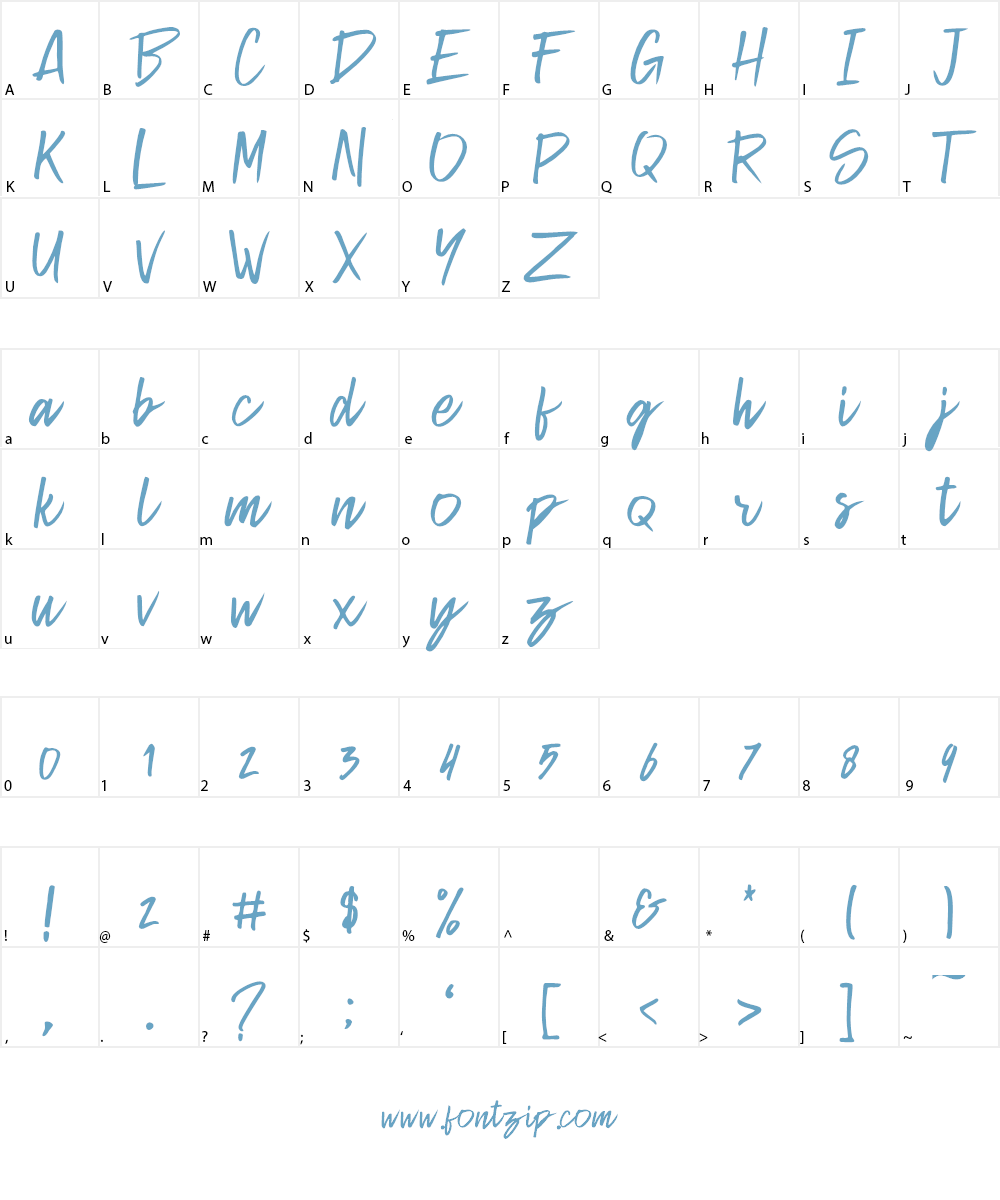
Helio from HandletterYean is a simple handwritten brush script font. If you need a simple but a bit rough looking brush font for you design, I think Helio is your answer. This font is Free for Personal Use only!